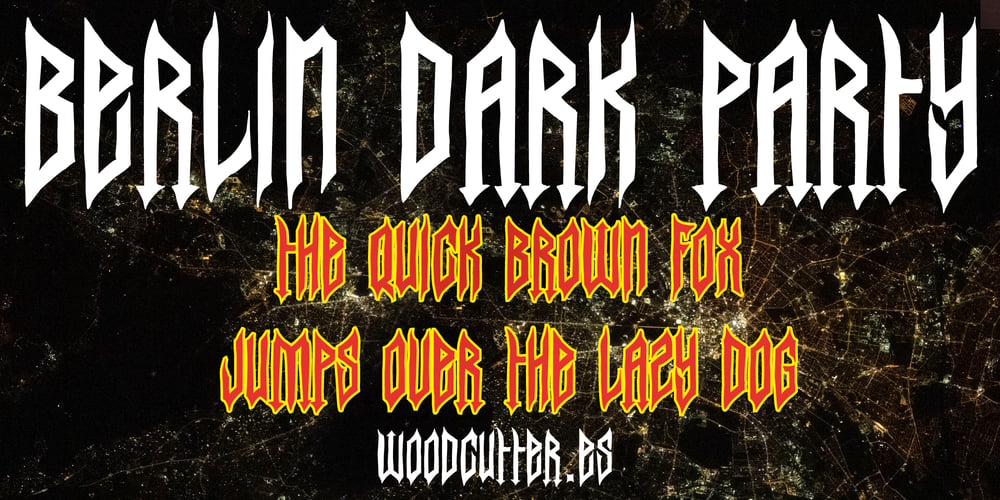
Berlin Dark Party Font Family was designed by Jordi Manero and published by Woodcutter. Berlin Dark Party contains 1 styles and family package options. “Berlín Dark Party” is an uppercase font with a modern gothic style that combines a handmade feel with a striking aesthetic. The letters are highly elongated, giving them an imposing and dramatic appearance, perfect for projects that aim to convey strength and mystery. Its handmade stroke adds a unique, artisanal touch, emphasizing its raw and rugged character. This font is ideal for dark event posters, themed parties, or designs needing a powerful and visually intense typeface, retaining gothic elegance with a contemporary twist.